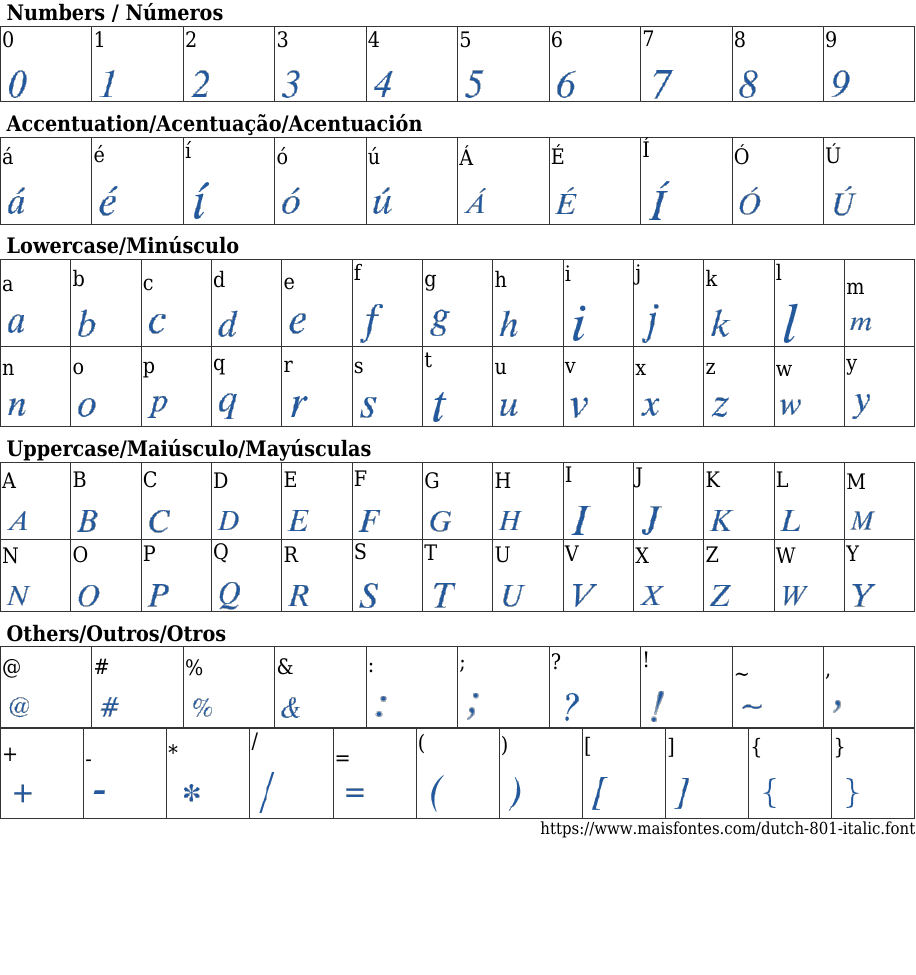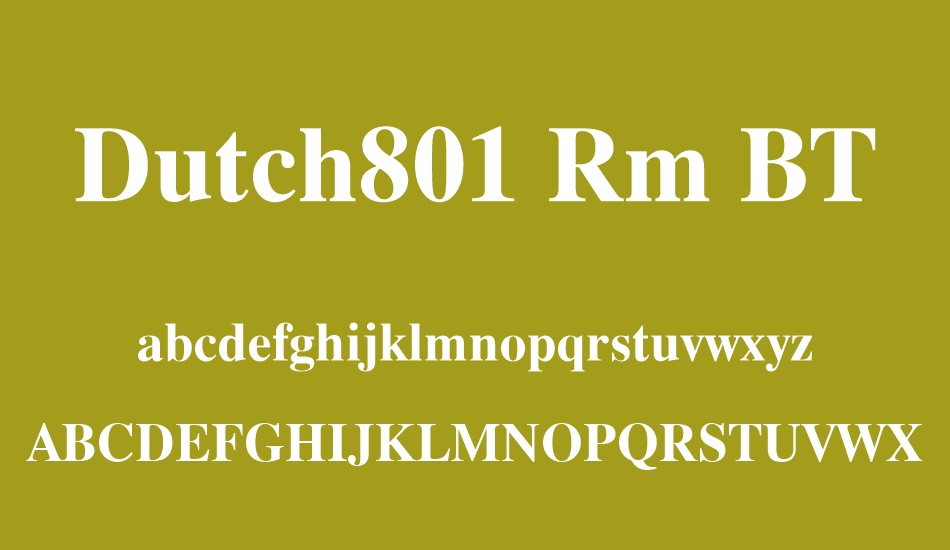
Dutch 801 Font
Dutch 801 Font - The author of the font is unknown. This is a listing of all glyphs contained in the. For tto a classic serif font with elegant and sharp serifs. Installable on pc, mac, linux, ios, and android platforms. Discover the free dutch 801 bold bt font at free font download ! This font features a classic serif design with. The font version is 003.001 and its license is:.
For tto a classic serif font with elegant and sharp serifs. Installable on pc, mac, linux, ios, and android platforms. This font features a classic serif design with. Discover the free dutch 801 bold bt font at free font download ! The author of the font is unknown. This is a listing of all glyphs contained in the. The font version is 003.001 and its license is:.
Installable on pc, mac, linux, ios, and android platforms. The author of the font is unknown. Discover the free dutch 801 bold bt font at free font download ! For tto a classic serif font with elegant and sharp serifs. This is a listing of all glyphs contained in the. This font features a classic serif design with. The font version is 003.001 and its license is:.
This font features a classic serif design with. The author of the font is unknown. For tto a classic serif font with elegant and sharp serifs. Discover the free dutch 801 bold bt font at free font download ! This is a listing of all glyphs contained in the.
Dutch801BTExtraBold Font
The font version is 003.001 and its license is:. Installable on pc, mac, linux, ios, and android platforms. This is a listing of all glyphs contained in the. This font features a classic serif design with. For tto a classic serif font with elegant and sharp serifs.
The author of the font is unknown. Discover the free dutch 801 bold bt font at free font download ! For tto a classic serif font with elegant and sharp serifs. This is a listing of all glyphs contained in the. The font version is 003.001 and its license is:.
The font version is 003.001 and its license is:. Installable on pc, mac, linux, ios, and android platforms. This is a listing of all glyphs contained in the. For tto a classic serif font with elegant and sharp serifs. This font features a classic serif design with.
For tto a classic serif font with elegant and sharp serifs. This font features a classic serif design with. The font version is 003.001 and its license is:. This is a listing of all glyphs contained in the. The author of the font is unknown.
The author of the font is unknown. For tto a classic serif font with elegant and sharp serifs. This font features a classic serif design with. Discover the free dutch 801 bold bt font at free font download ! The font version is 003.001 and its license is:.
The font version is 003.001 and its license is:. This font features a classic serif design with. Installable on pc, mac, linux, ios, and android platforms. This is a listing of all glyphs contained in the. For tto a classic serif font with elegant and sharp serifs.
Dutch 801 Headline
Discover the free dutch 801 bold bt font at free font download ! For tto a classic serif font with elegant and sharp serifs. This is a listing of all glyphs contained in the. The font version is 003.001 and its license is:. Installable on pc, mac, linux, ios, and android platforms.
Dutch801 Rm BT free font
The author of the font is unknown. This font features a classic serif design with. Installable on pc, mac, linux, ios, and android platforms. The font version is 003.001 and its license is:. This is a listing of all glyphs contained in the.
The Author Of The Font Is Unknown.
Discover the free dutch 801 bold bt font at free font download ! The font version is 003.001 and its license is:. Installable on pc, mac, linux, ios, and android platforms. This is a listing of all glyphs contained in the.
For Tto A Classic Serif Font With Elegant And Sharp Serifs.
This font features a classic serif design with.